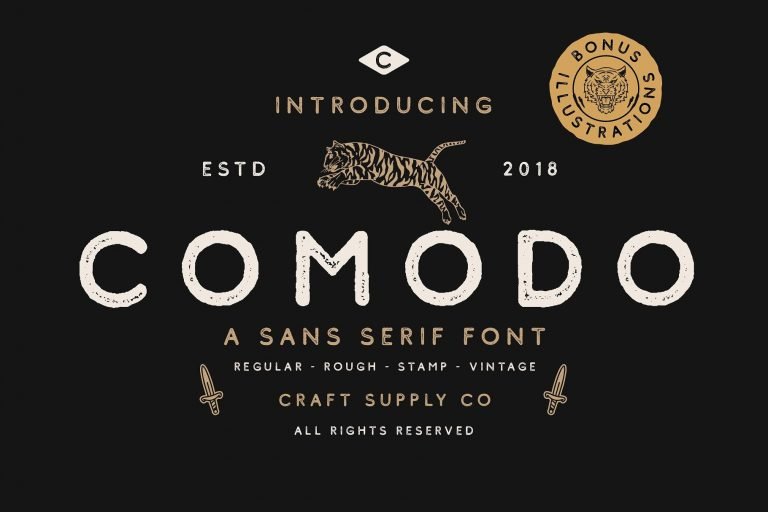
Comodo Font Family
Hi designer! Introduces a font that is special for logo. Introducing Comodo Font. Comodo + Illustrations includes 4 Style Fonts. It can be used to create almost all types of design projects like print materials. Just use your imagination and some graphic design set in Extras, your project will become more alive and look great than ever with one of the Comodo Font.